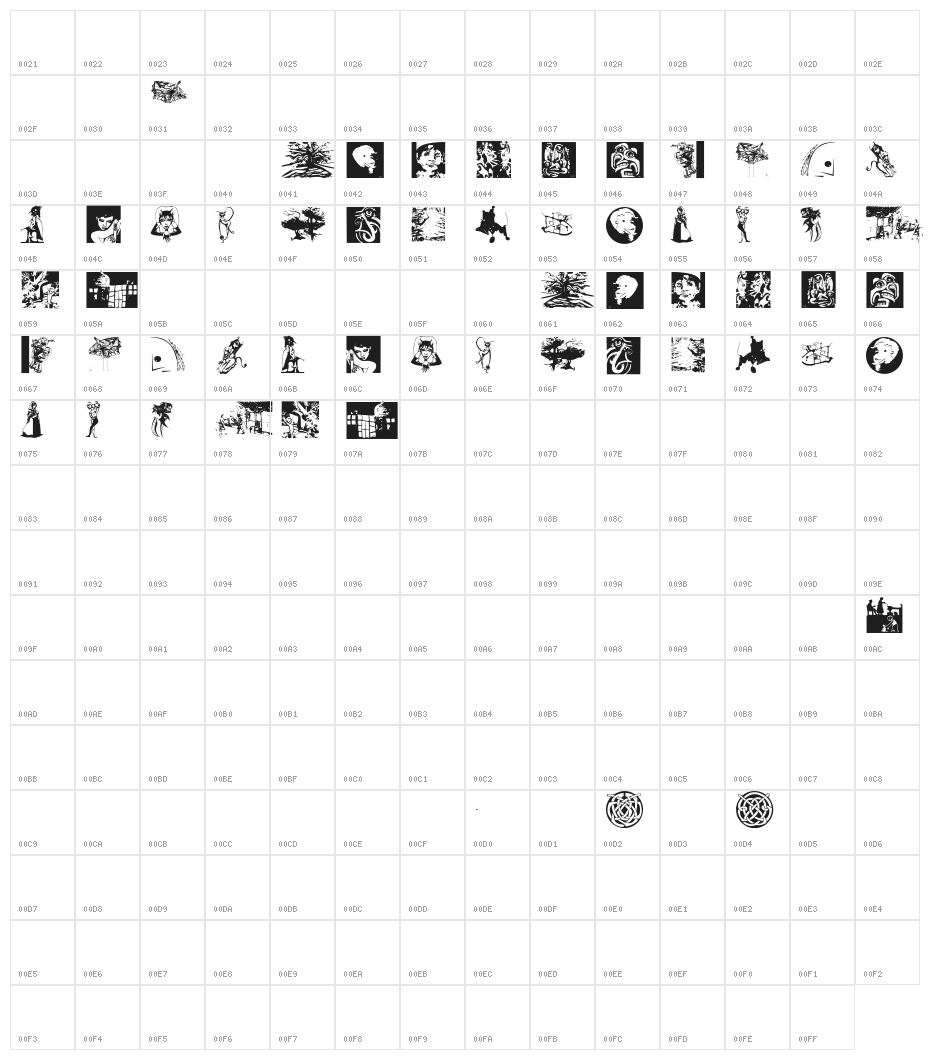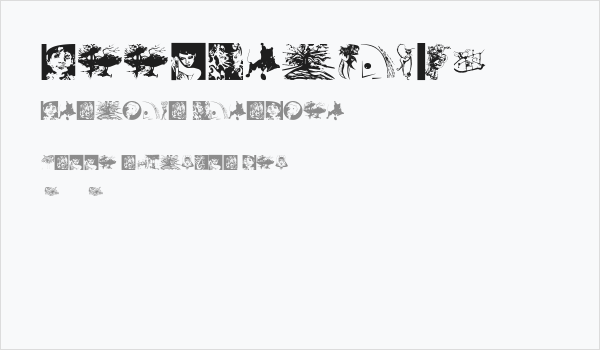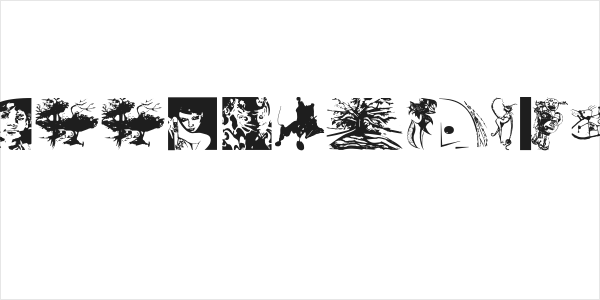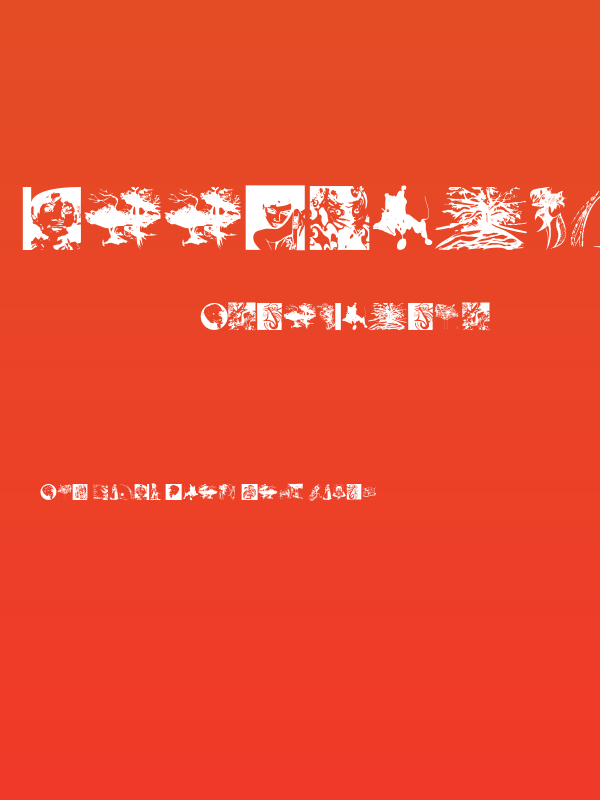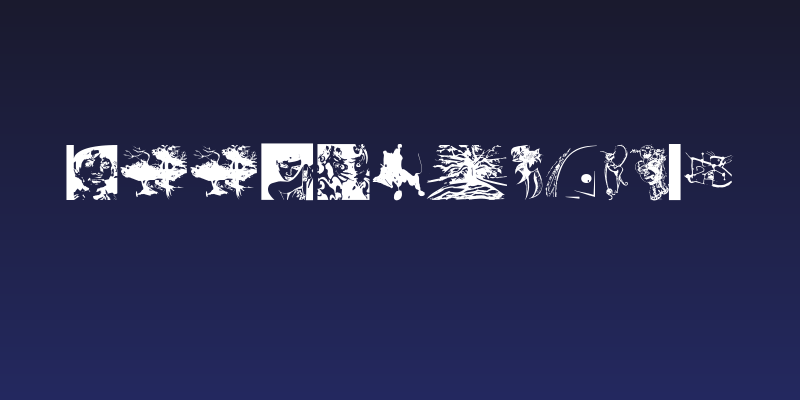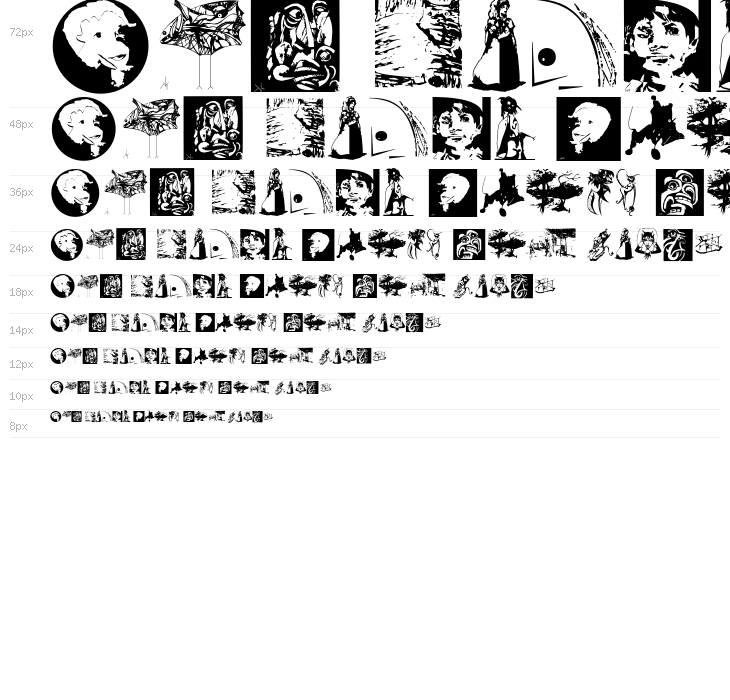
CoolDrawings Font
CoolDrawings Description
A highly decorative and illustrative typeface composed of unique, detailed drawings and artistic scenes for each character, blending organic and surreal elements in a black-and-white, high-contrast style.
| Overall Style | Decorative, Artistic, Surreal |
| Use Case | Logos, Headlines, Posters, Artistic projects |
| Proposed Projects | Posters, album covers, art projects, creative branding, editorial illustrations, event invitations. |